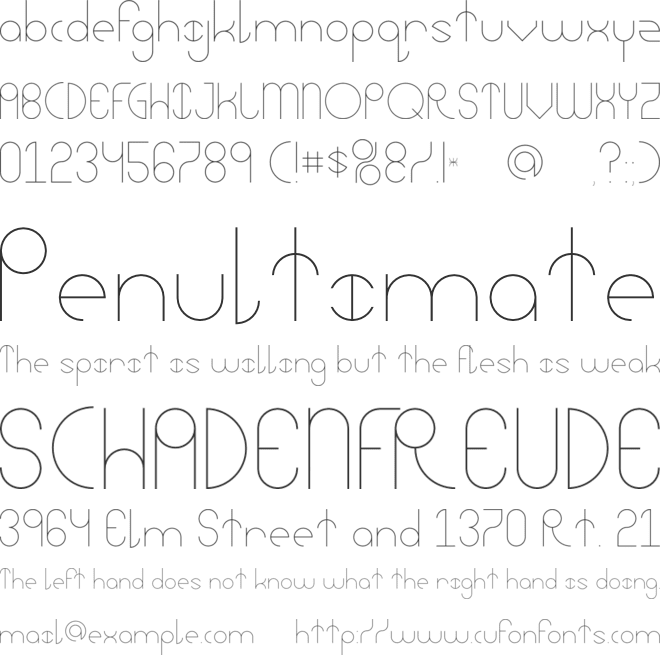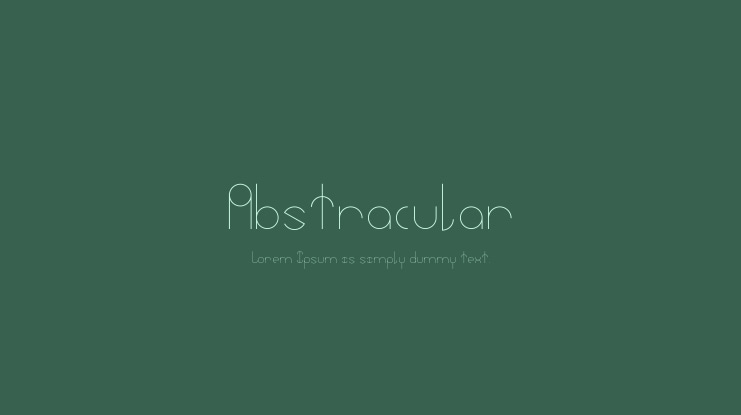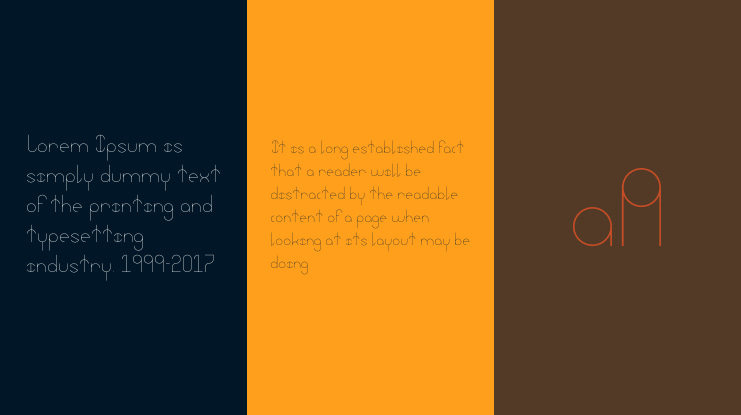
Abstracular Font
DefayDesigns
Abstracular is a geometric, display typeface mostly composed of circles but some triangles found their way into the shapes. Two more weights and multilingual support coming, updated for free once you buy the product! http://bit.ly/Abstracular